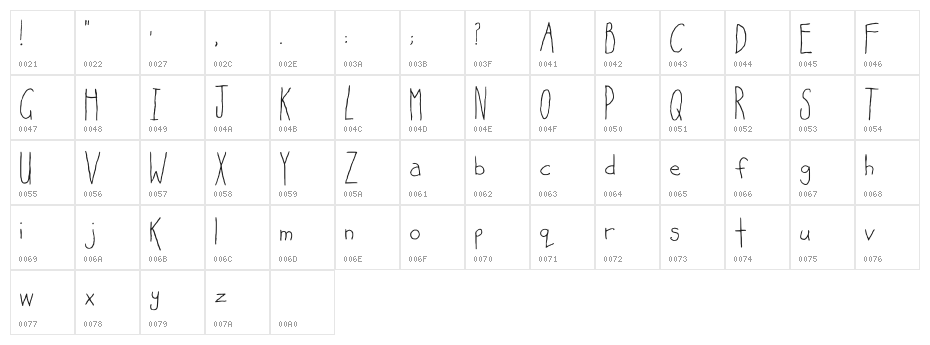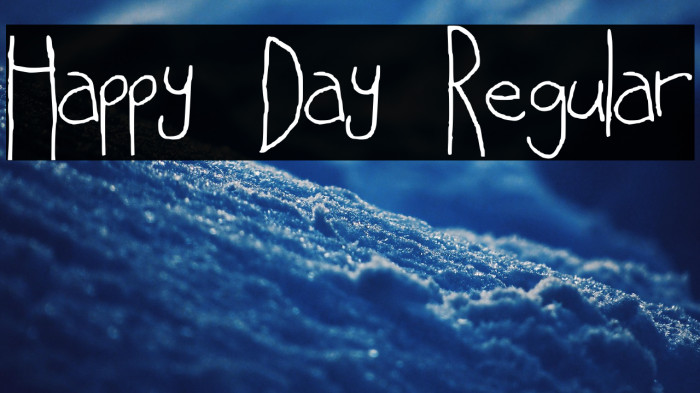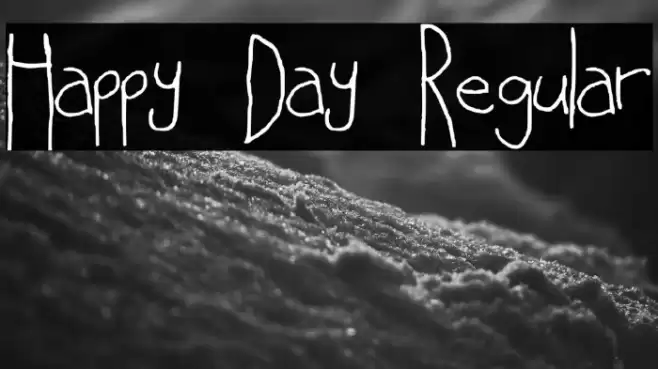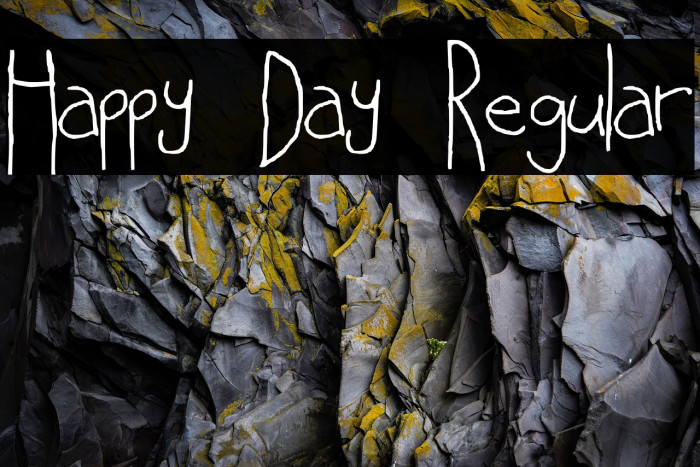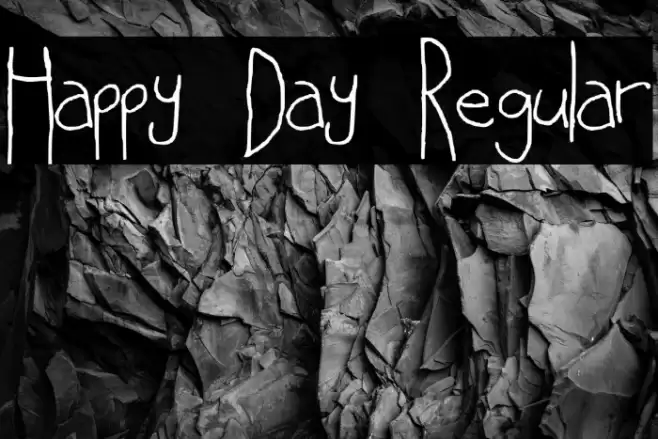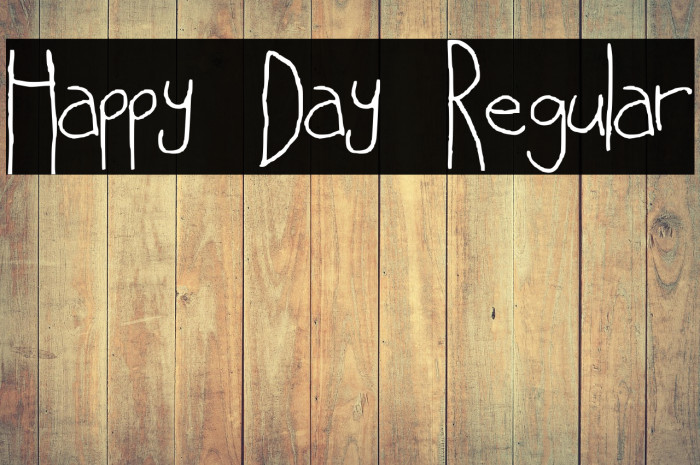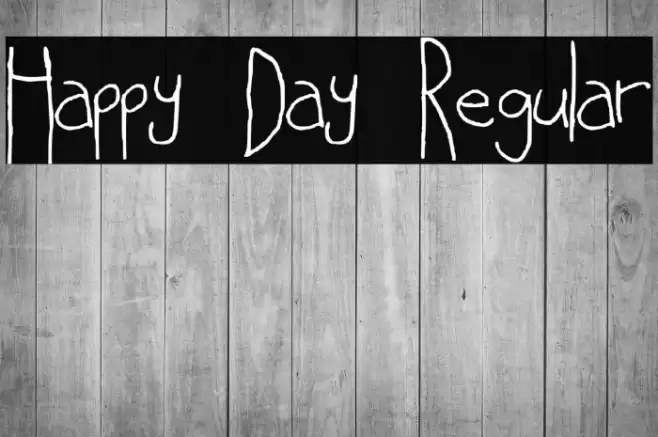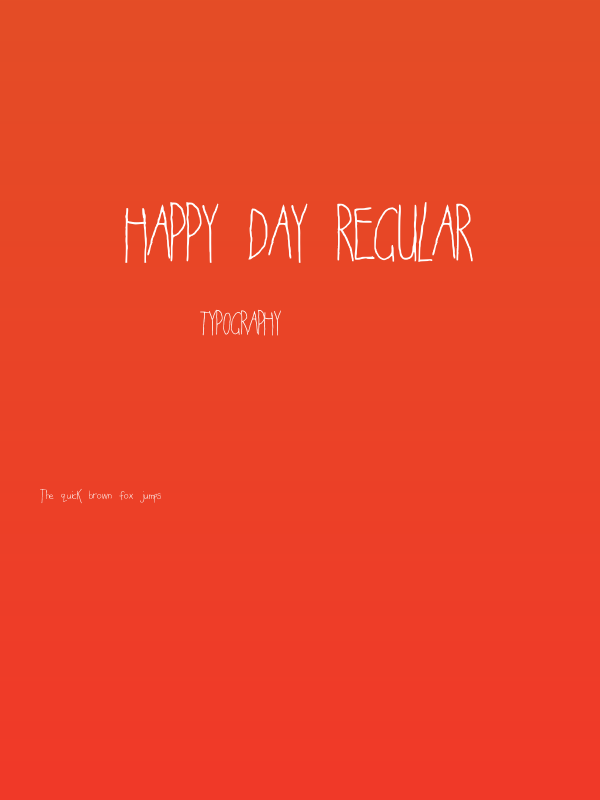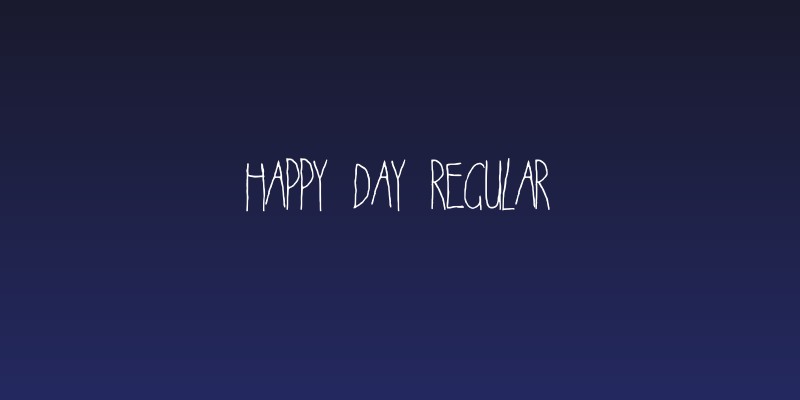
Happy Day Regular Font
Happy Day Regular Description
This font features a playful and whimsical handwritten style, characterized by its tall, narrow letters and uneven strokes. The uppercase and lowercase letters share a consistent, casual appearance, with a slightly irregular baseline that adds to its charm. The font's thin lines and varying stroke widths give it a light, airy feel, making it ideal for projects that require a touch of personality and creativity. The special characters, including punctuation marks, maintain the same quirky style, ensuring a cohesive look across all text elements.
| Proposed Projects | Ideal for greeting cards, children's book covers, playful branding, and creative posters. |